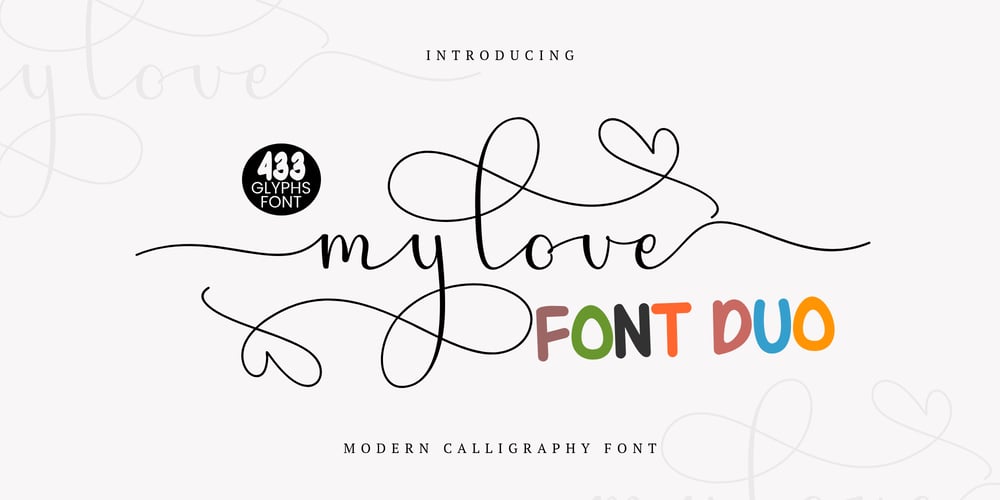
My love Script Font Family was designed by Zaki Muhammad and published by madjack.font. My love Script contains 2 styles and family package options. My Love Font duo is a beautiful and timeless handwritten font. It is the best choice for creating eye-catching logos, branding and quotes. This font is PUA coded which means you can access all the glyphs and swashes easily!What’s Included:Alternatives and LigaturesWorks on PC & MacSimple InstallationPUA Coded CharactersMultilingual SupportIf you have any questions about our products, please feel free to contact us.Thank You!